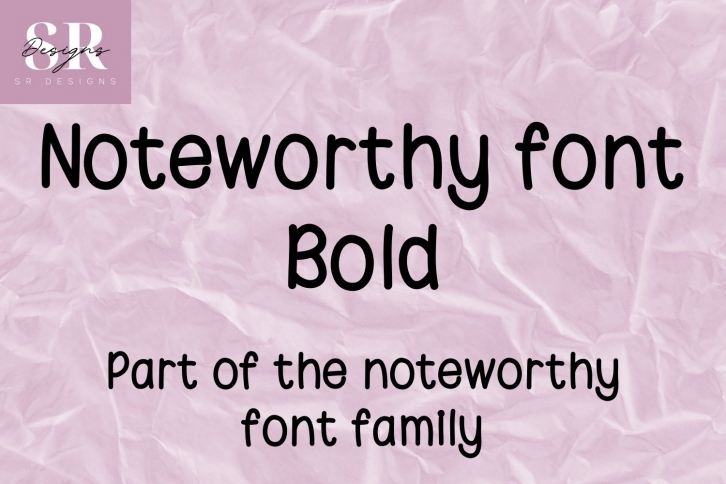
Noteworthy bold is a beautiful font that was designed by SR Designs UK. It's a great choice for designers and creatives who need such a font. It was released on September 9, 2022 and the file size is 6.28 MB. Noteworthy bold may give a more youthful, expressive and casual look to your project. It is a very beautiful, refined, elegant, and high-quality font.